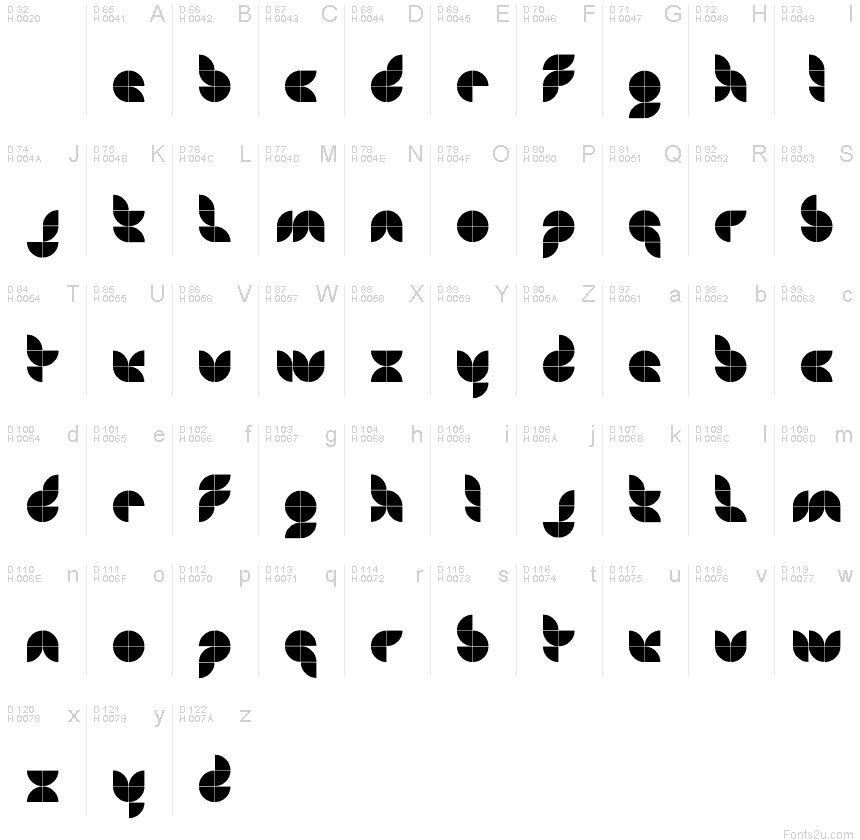
Consume or Die from High-Logic.com is a free geometric display font built from circles, half-circles, and sharply divided modular forms. Repeated quadrant cuts give the letters a crisp, engineered pulse.
It can shape an experimental music poster as convincingly as a technology brand, since the broad curves recall both speaker cones and precisely fitted machine parts. Packaging for electronics and animated digital graphics also suit its compact blocks, direct geometry, and sense of mechanical motion. Across these settings, the common thread is system-minded design that lets the lettering double as a visual pattern of rotating discs, switches, or assembled components.